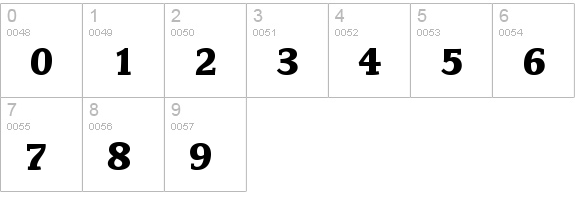
Poseidon-Bold Font Details
Poseidon-Bold is a strong, high-contrast variant in the Poseidon typeface family \xE2\x80\x94 well suited to headlines, attention-grabbing titles, and strong calls-to-action.
Introducing Poseidon-Bold font, a captivating and versatile typeface that commands attention with its bold and powerful presence. This modern and stylish font exudes strength and confidence, making it perfect for a wide range of design projects. Whether you are creating posters, logos, headlines, or any other graphic design work, Poseidon-Bold font will make your text stand out with its bold and impactful appearance. What makes Poseidon-Bold font even more appealing is that it is available for free download at FontsMarket.com. This means you can easily access this stunning font and use it in your projects without any cost. Don't miss the opportunity to add Poseidon-Bold font to your collection and elevate your designs with its striking typography. Download it now and unleash the full potential of this impressive font!